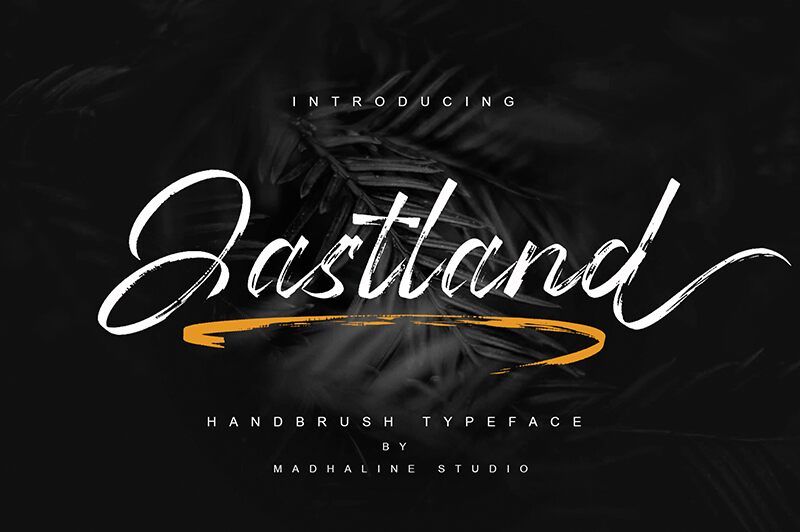
Jastland
Jastland, the latest creation from Madhaline Studio, is a dry marker font that exudes a playful, yet professional vibe. With its semi-light weight, Jastland is perfect for projects ranging from children's books and posters to social media graphics and invitations. Its unique style adds character and personality to any design while maintaining readability. Whether you're designing a whimsical logo or a funky menu for your cafe, Jastland has got you covered. Its organic strokes give your text an authentic hand-drawn feel that will make your audience take notice. Add some flair to your next project with Jastland!
Madhaline Studio